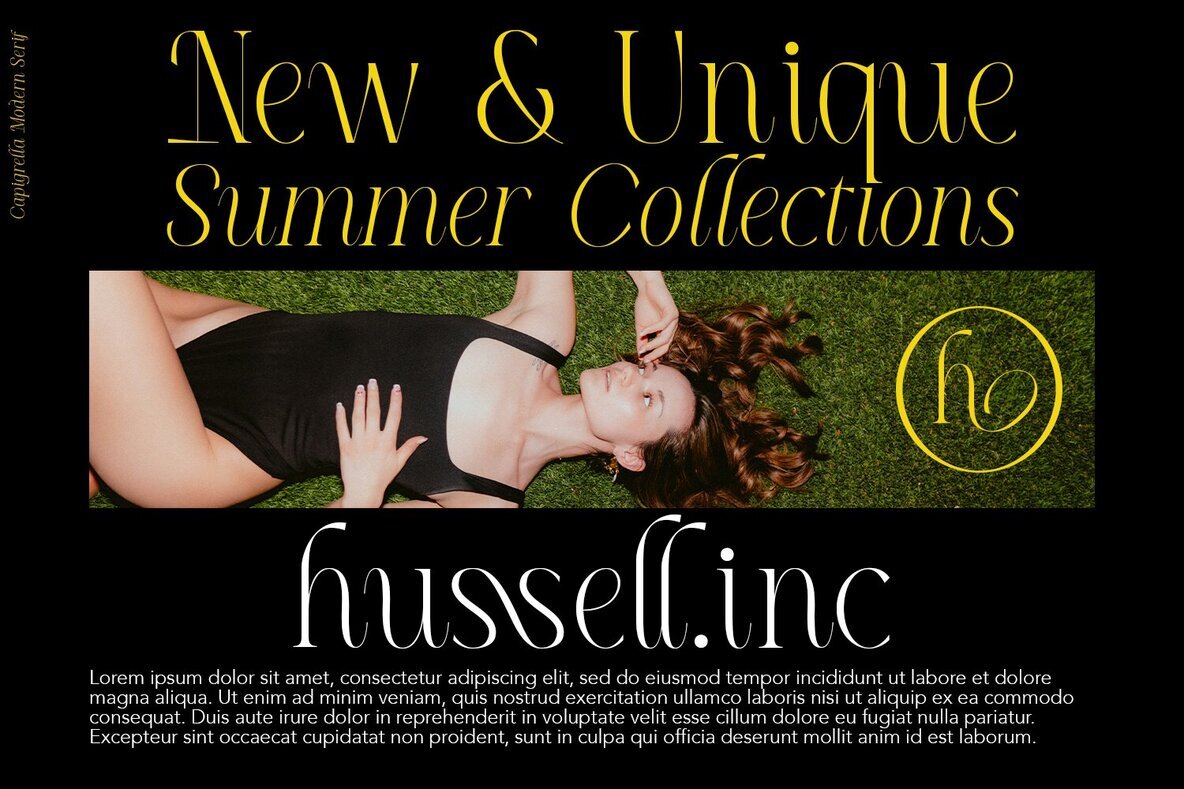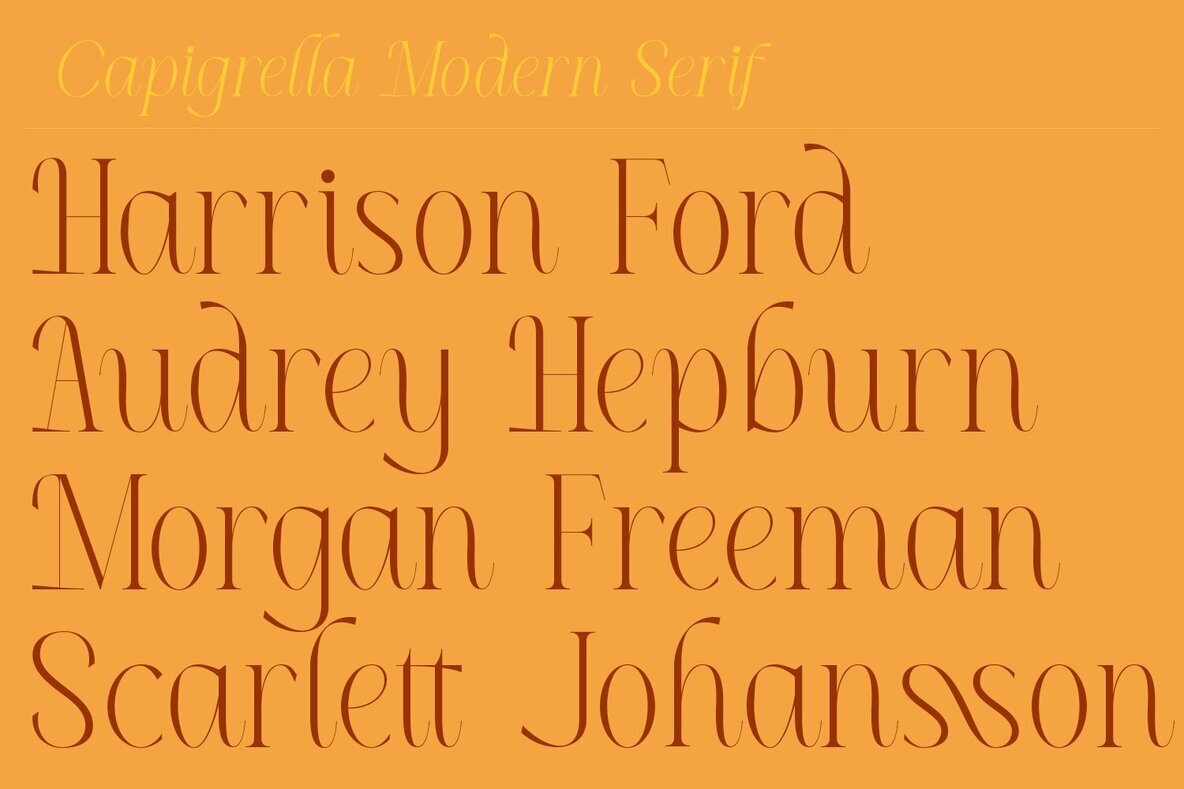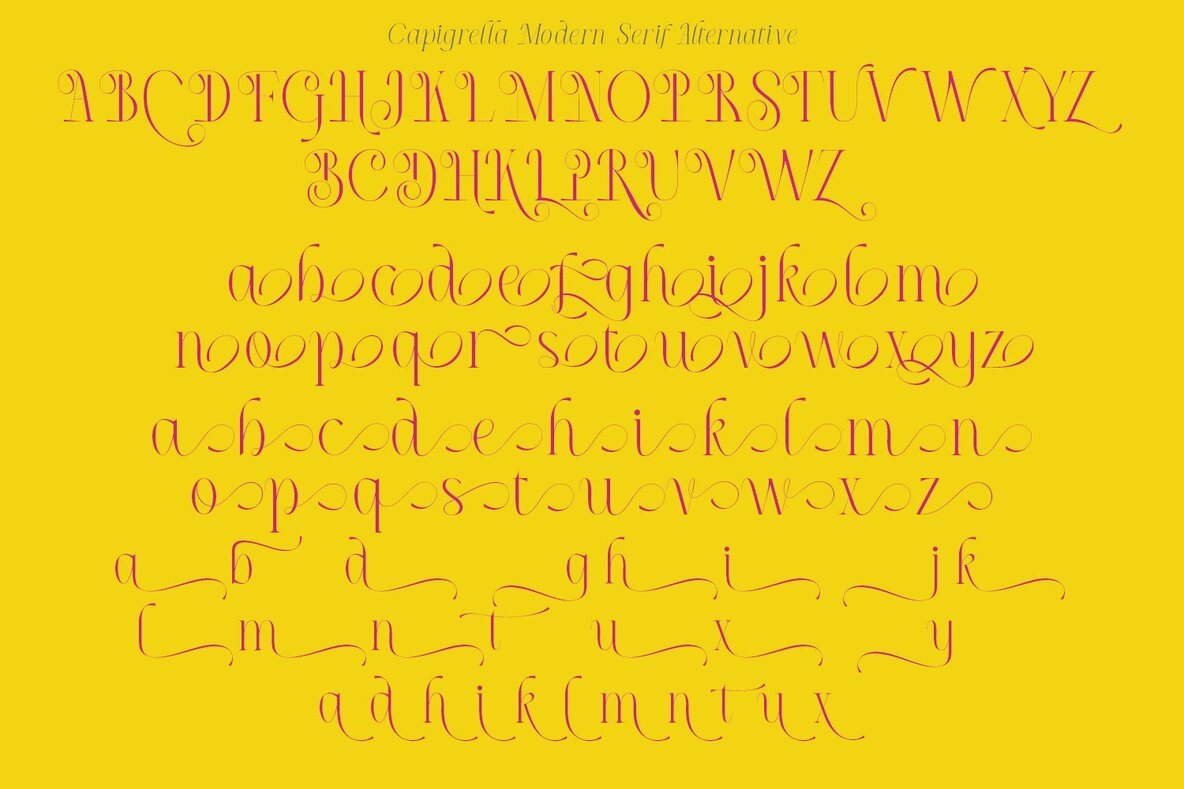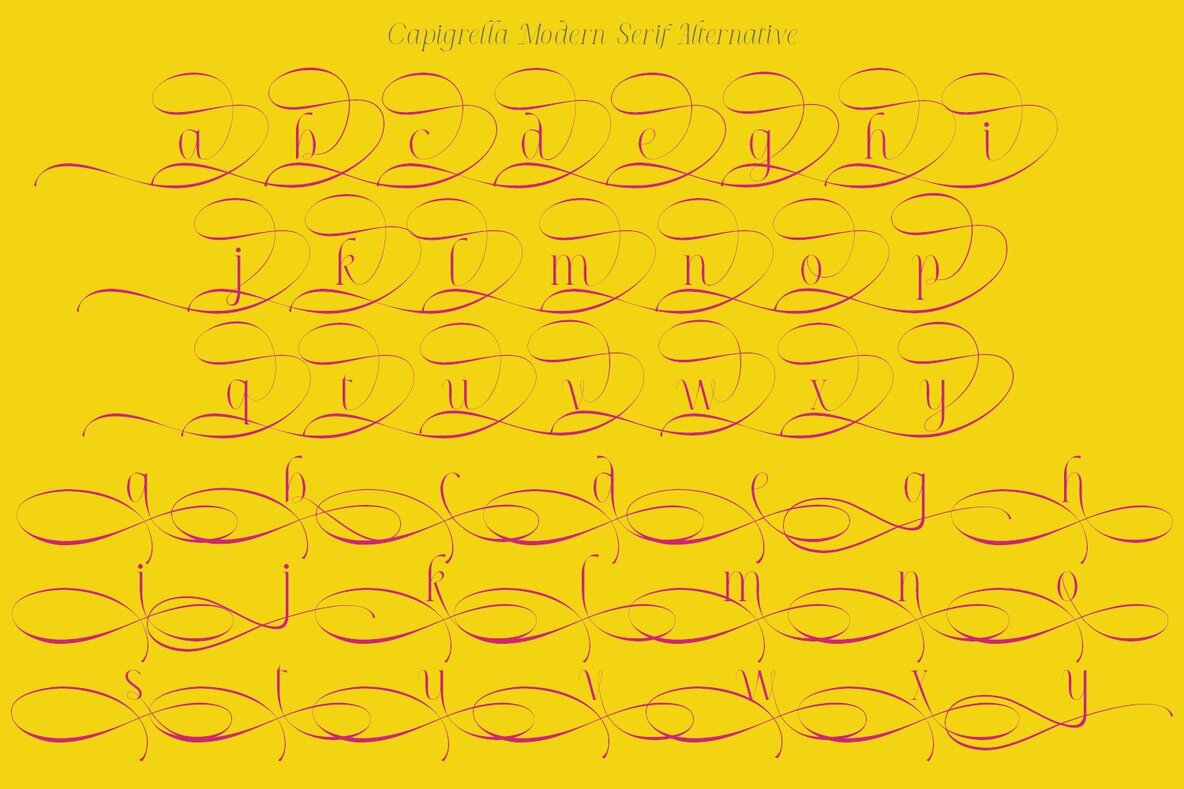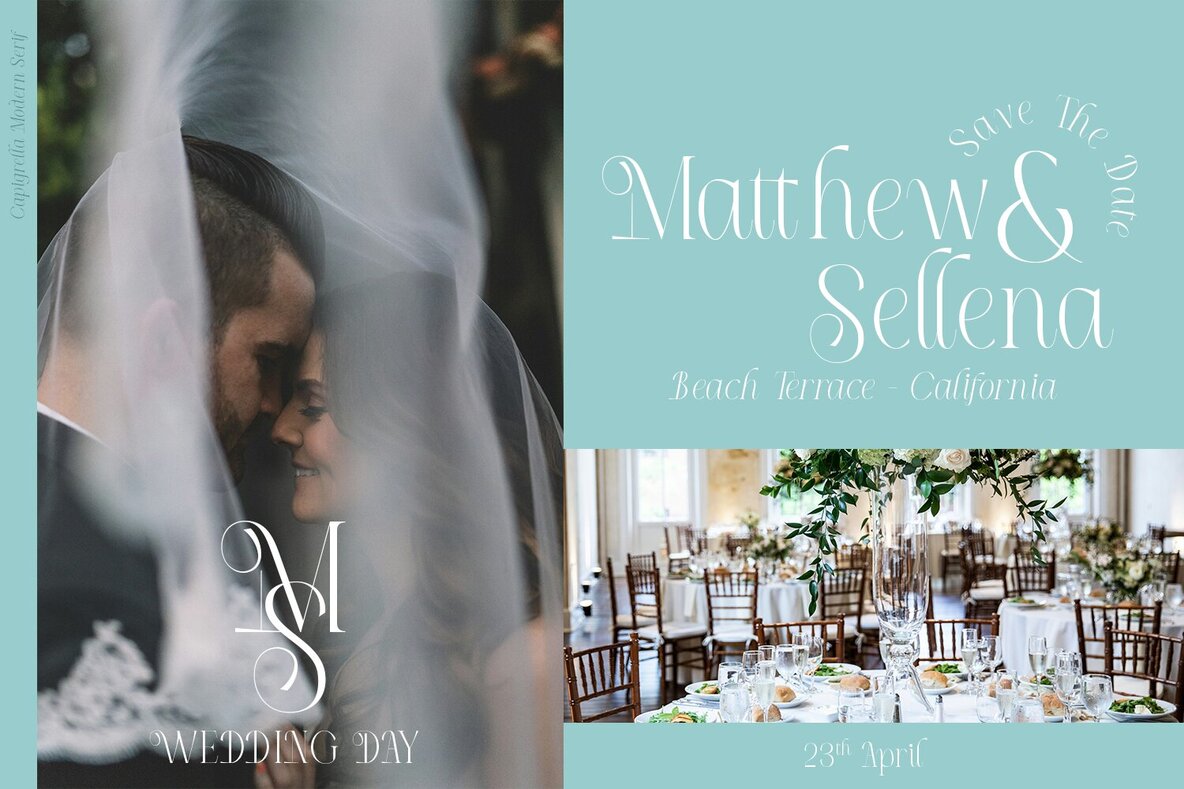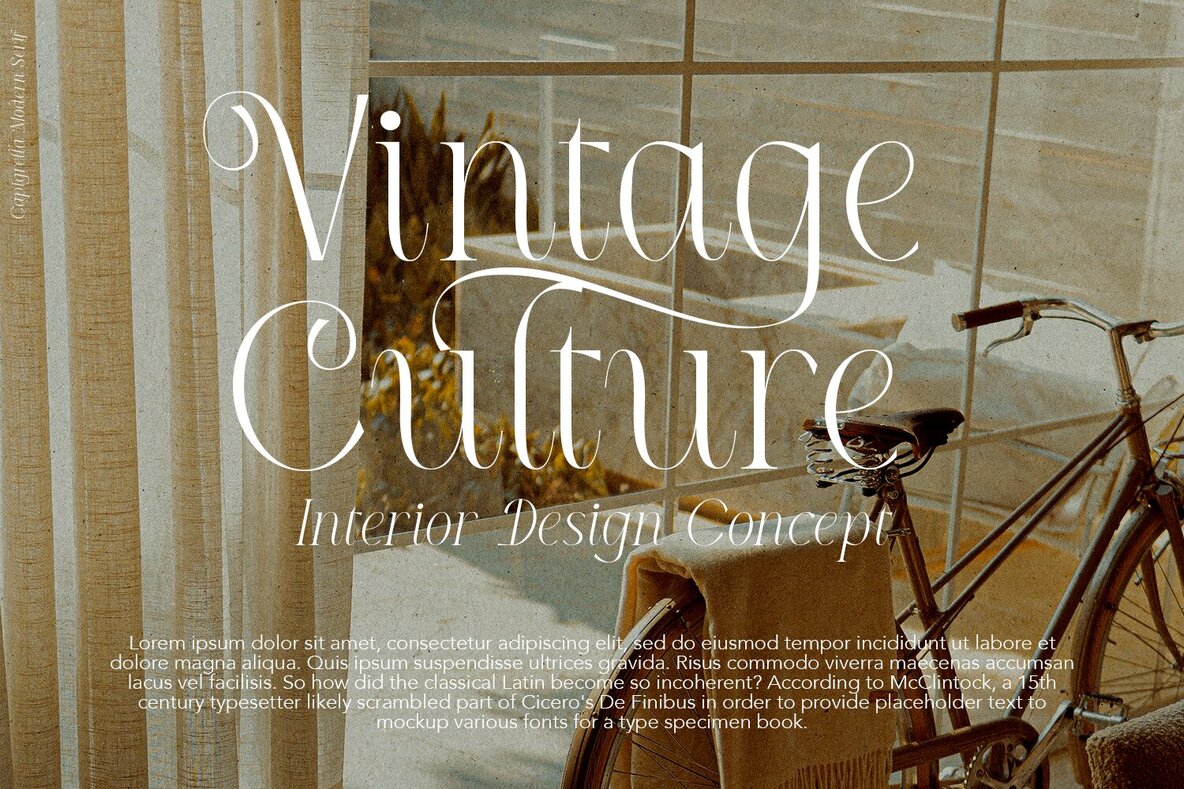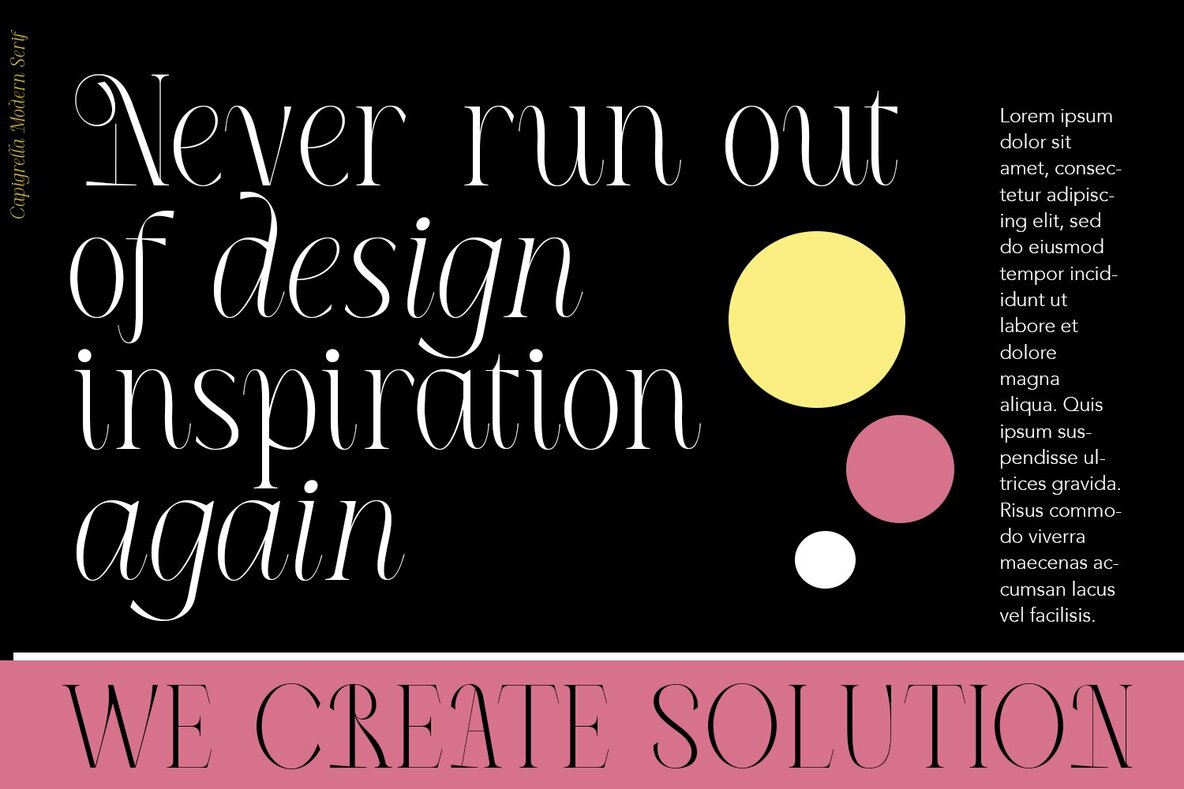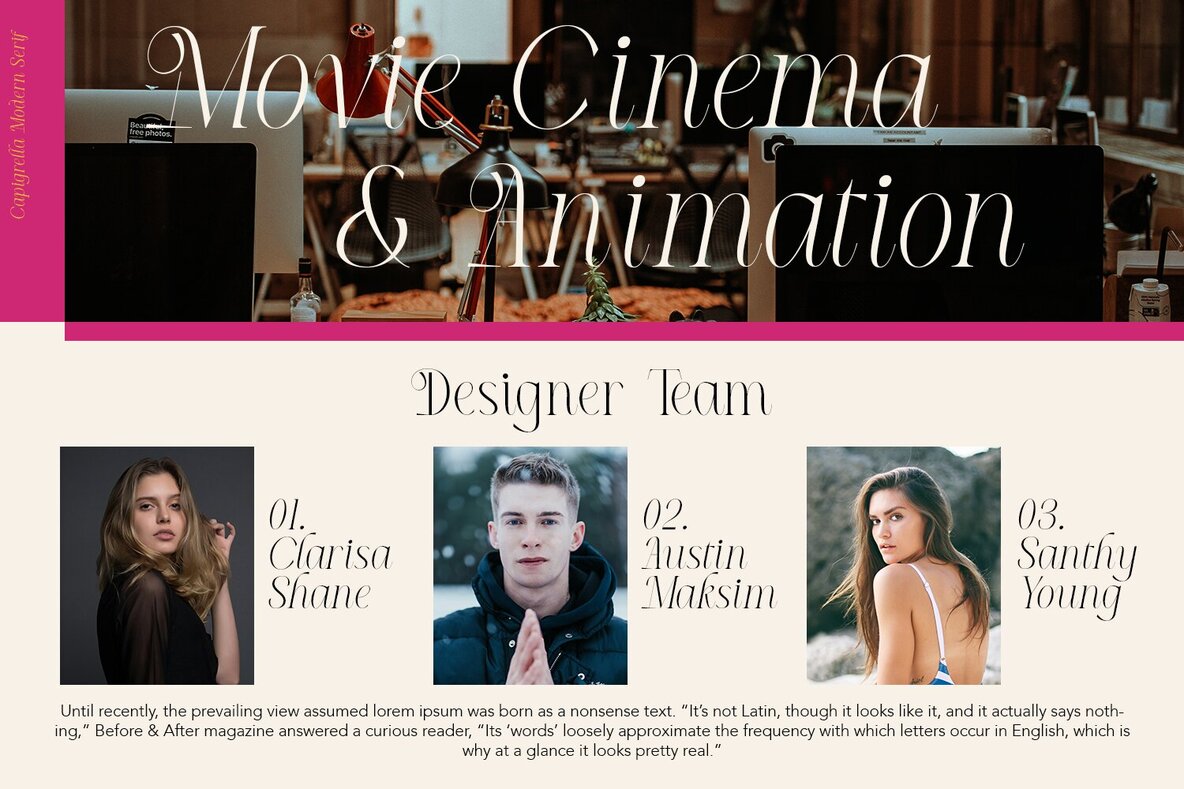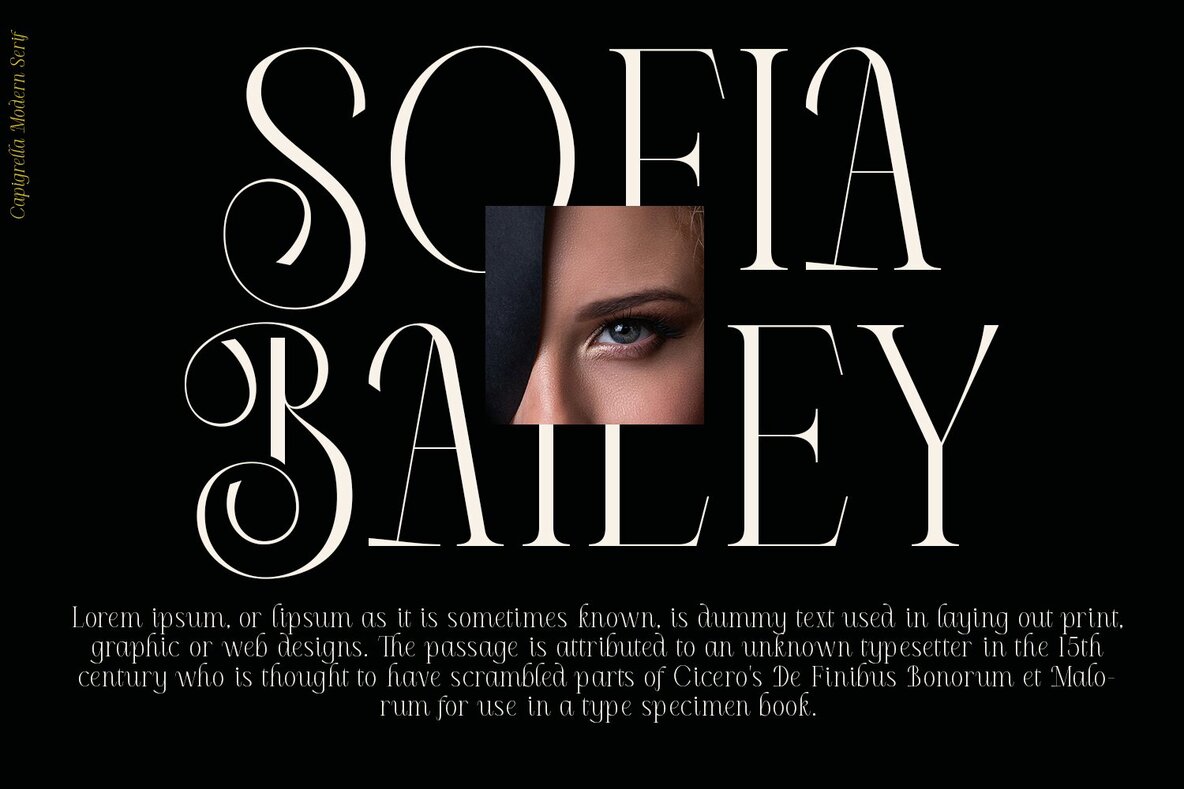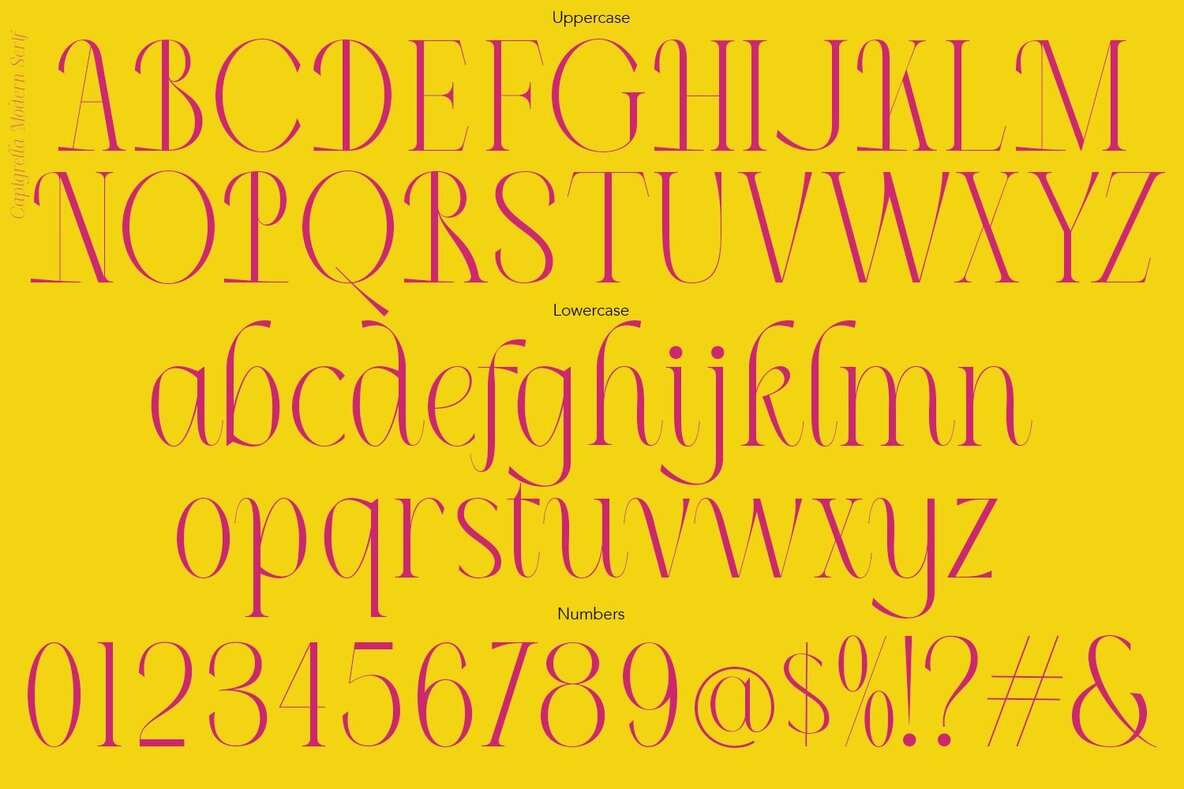
Capigrella Font
Capigrella Regular
Capigrella Italic
Capigrella is a chic serif font that effortlessly combines a classic feel with an elegant, minimalist look. Its potential to enhance your creative projects is immense, thanks to its sophisticated style, ligatures, and special alternative glyphs. The font's versatility allows for numerous layouts and compositions, making it a valuable asset for any designer's toolkit.
This luxury typeface is perfect for adding a bespoke, custom typography touch to logos, websites, social media quotes, and wedding branding. Whether you're working on digital or print media, Capigrella's refined aesthetic ensures your designs exude professionalism and elegance. Discover the myriad possibilities Capigrella offers and elevate your design work to new heights.